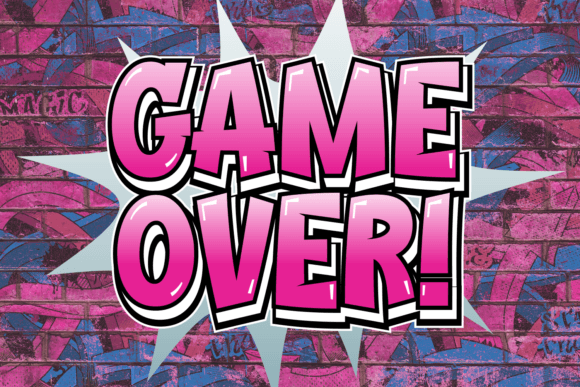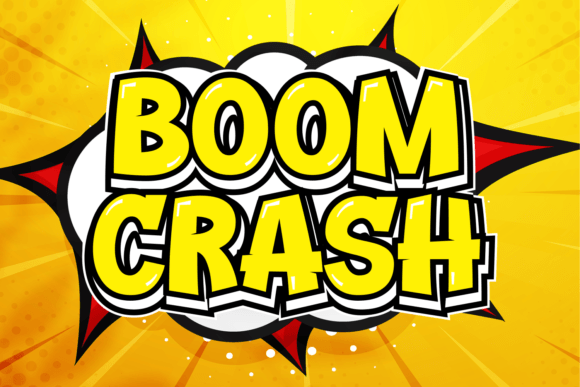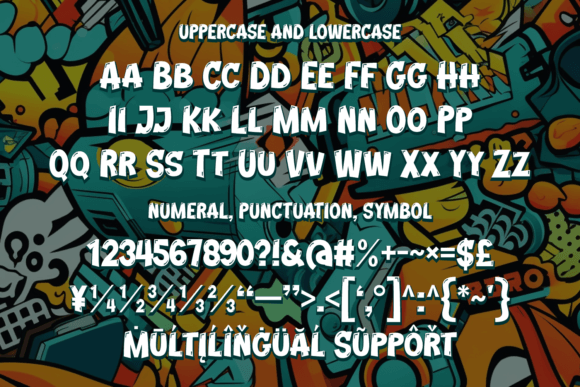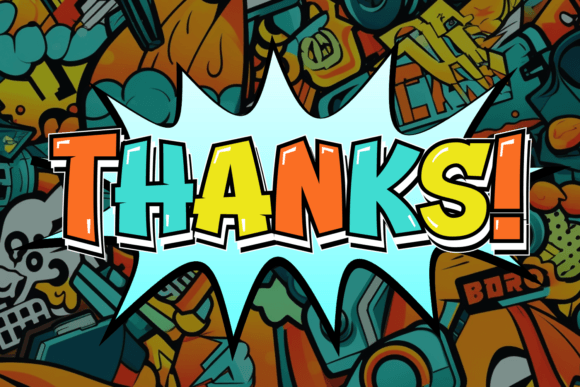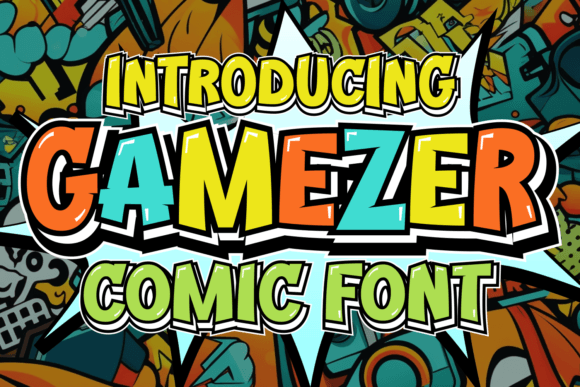
Introducing Gamezer Font: The Ultimate Cartoon Font for Designers and Crafters
Are you looking for a font that bursts with energy and playfulness? Look no further than Gamezer Font! This super cartoon font is designed to add a touch of whimsy and dynamism to any design project. With its bold lines, dynamic curves, and exaggerated lettering, Gamezer Font is perfect for conveying action, excitement, and adventure.
The Characteristics of Gamezer Font
Gamezer Font is a one-of-a-kind font that features:
- Exaggerated lettering: Each letter is carefully crafted to be larger-than-life, making it perfect for grabbing attention and adding emphasis to your design.
- Bold lines: The font features bold, sturdy lines that give it a sense of strength and vigor.
- Dynamic curves: The curves in Gamezer Font are smooth and fluid, evoking the sense of movement and energy found in comic book characters.
The Benefits of Using Gamezer Font
So why choose Gamezer Font for your design projects? Here are just a few benefits:
- Perfect for comic books and graphic novels: Gamezer Font is a natural fit for comic books and graphic novels, adding a touch of authenticity and excitement to your story.
- Ideal for posters and flyers: The bold, attention-grabbing design of Gamezer Font makes it perfect for posters and flyers that need to stand out.
- Great for logos and branding: Gamezer Font can add a touch of playfulness and whimsy to your logo or branding, making it more memorable and engaging.
- Suitable for children’s media: The fun, energetic design of Gamezer Font makes it a great choice for children’s media, such as kids’ books, games, and educational materials.
How to Use Gamezer Font in Your Design Projects
Using Gamezer Font in your design projects is easy! Here are a few tips:
- Pair it with a simple background: Gamezer Font is bold and attention-grabbing, so pair it with a simple background to let it shine.
- Experiment with colors: Gamezer Font looks great in bright, bold colors, so don’t be afraid to get creative and try out different color schemes.
- Use it sparingly: While Gamezer Font is fun and energetic, it can be overwhelming if used too much. Use it sparingly to add emphasis and create visual interest.
Gamezer Font is a unique and exciting font that’s perfect for designers and crafters looking to add a touch of energy and playfulness to their design projects. With its bold lines, dynamic curves, and exaggerated lettering, Gamezer Font is sure to grab attention and bring a sense of fun and dynamism to any design. Whether you’re working on a comic book, poster, logo, or children’s media, Gamezer Font is an ideal choice for projects that aim to captivate and entertain audiences of all ages.